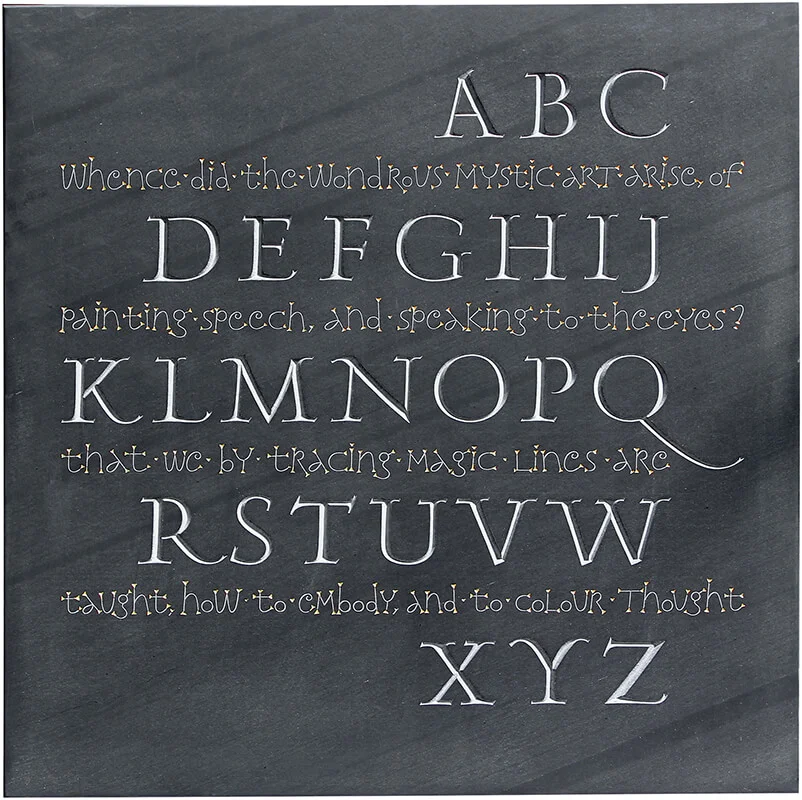
San Vito Revisited by ANNET STIRLING
Dual Text Alphabet 1
Brenda did the original drawings for the San Vito alphabet for our dual text called ‘Dante’, and it seemed a pity to never use it again. When I found the William Massey text I felt the colourful manuscript letters very much echoed the words. At the time I was developing my typeface Snowburst One (available free on google) and I used the idea of that design for the words.
The grandeur of the San Vito and the playfulness and magic of the triangular gilded serifs combined!